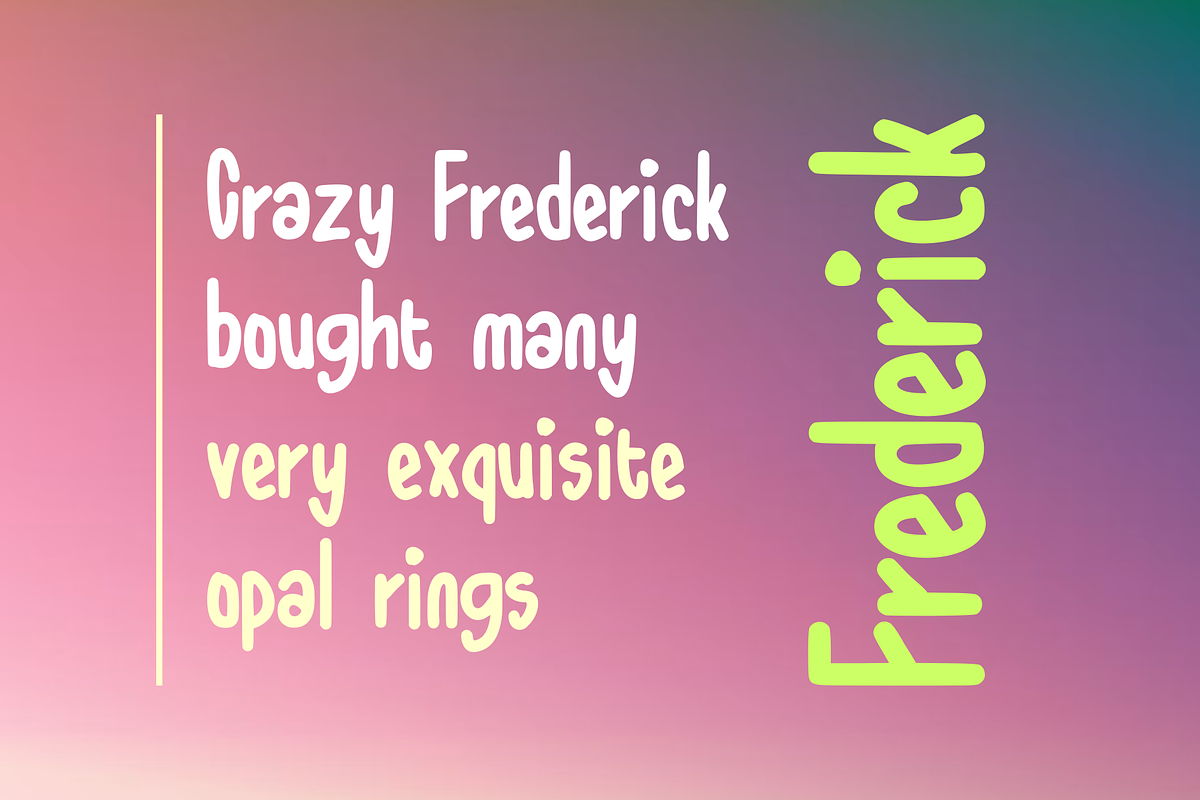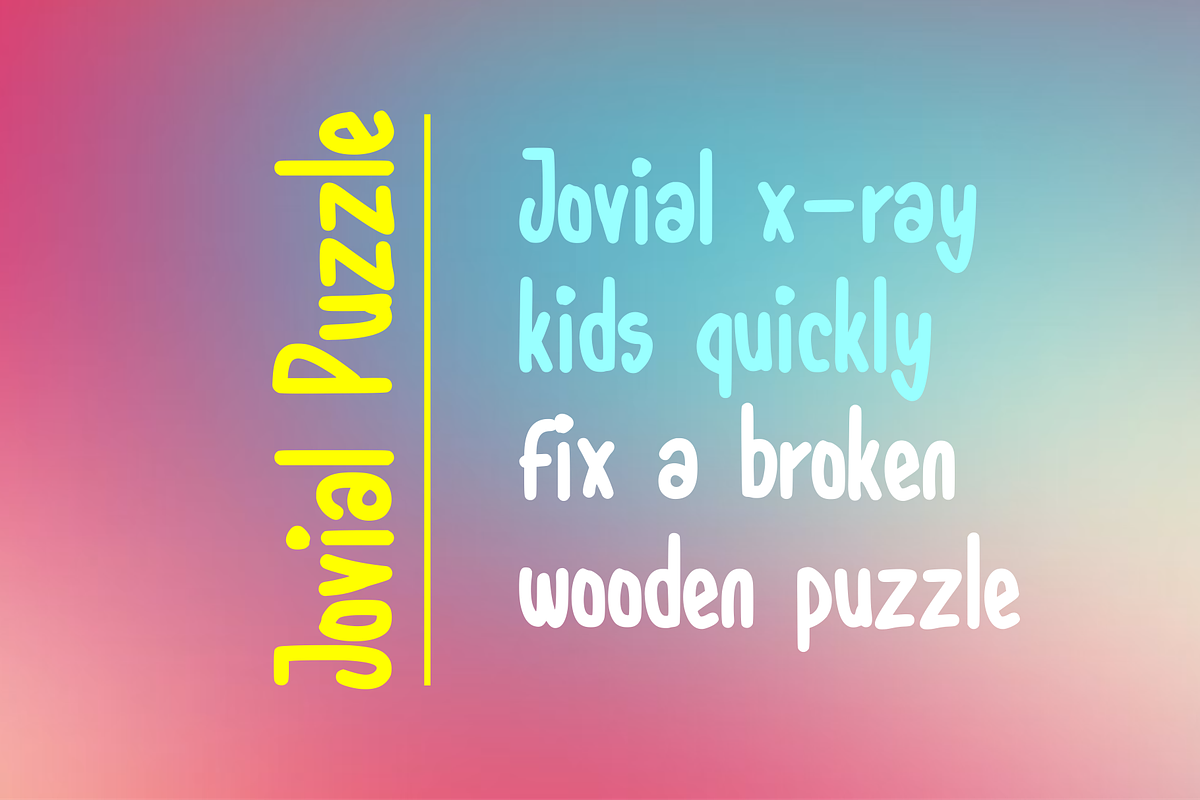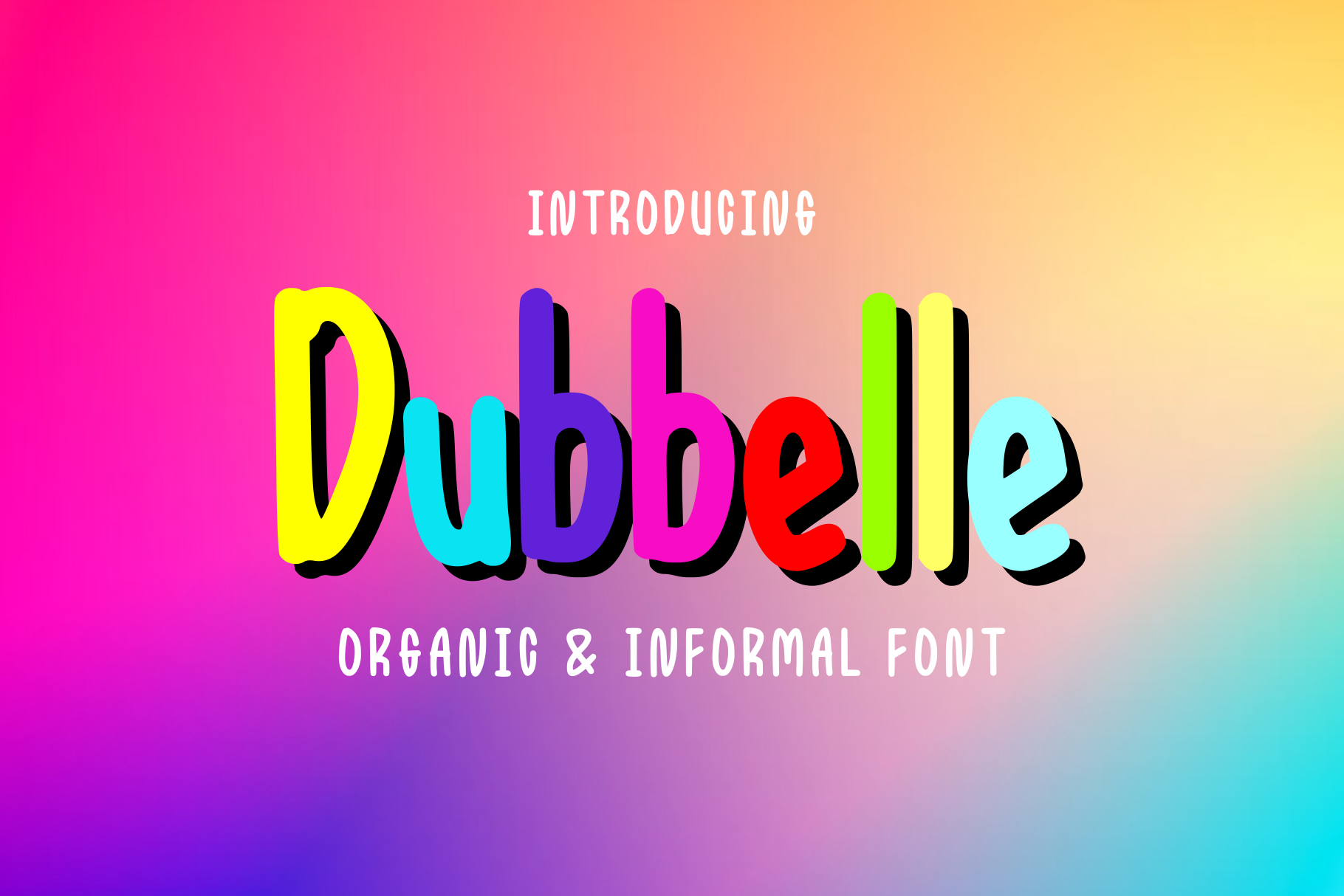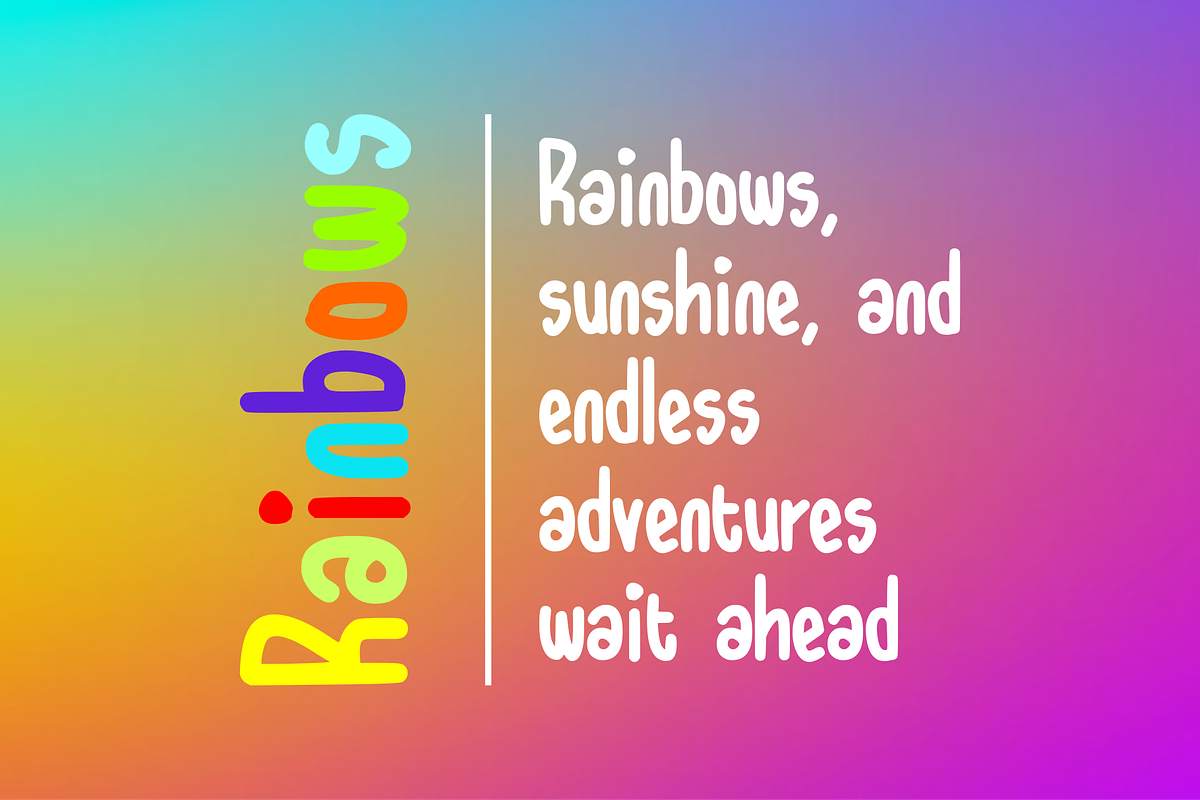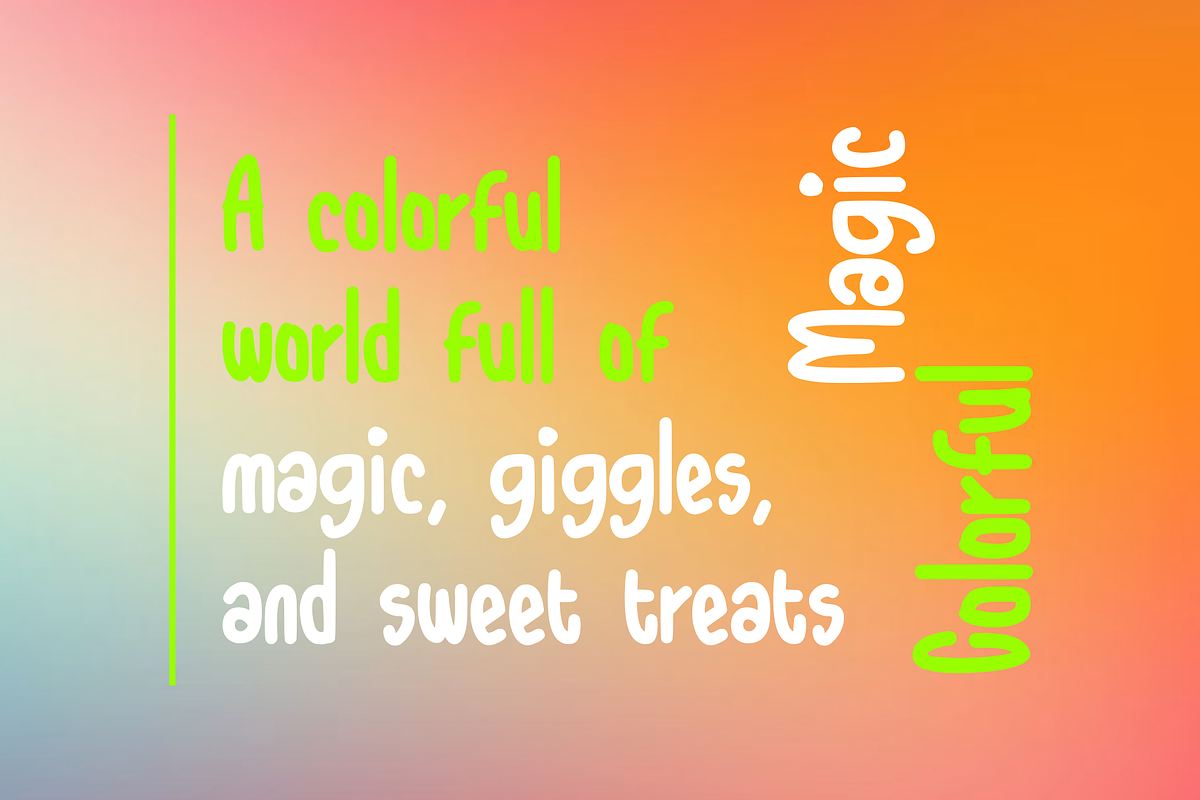
Dubbelle Organic & Informal Font
Dubbelle – Organic & Informal Font
Dubbelle is a playful organic display font with a relaxed, hand-drawn character and an effortlessly informal personality. Its rounded shapes, slightly irregular letterforms, and lively proportions create a warm and approachable appearance while maintaining a strong visual presence.
Perfect for projects that need a friendly, quirky, casual, and creative touch, Dubbelle works beautifully for branding, packaging, posters, apparel, social media graphics, invitations, stickers, product labels, and other expressive visual projects.
With its natural handmade feel, Dubbelle brings personality to every word and is especially suitable for designs that need to feel fun, authentic, youthful, and memorable.
Playful organic and hand-drawn style
Dubbelle is a great choice for: branding, packaging, product labels, posters, apparel, merchandise, social media graphics, stickers, greeting cards, children’s designs, editorial projects, and creative advertising.